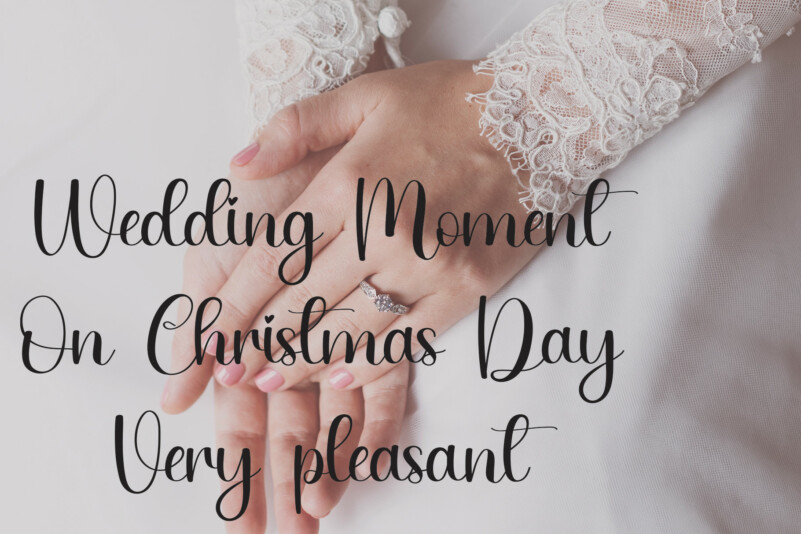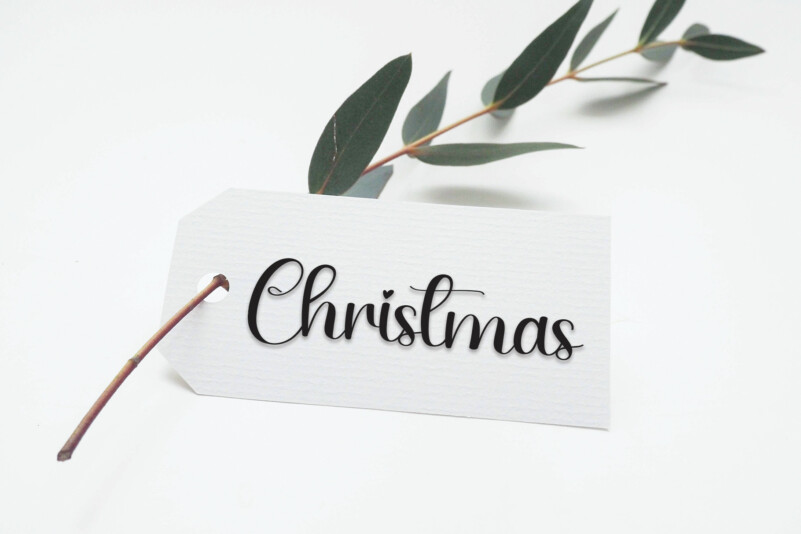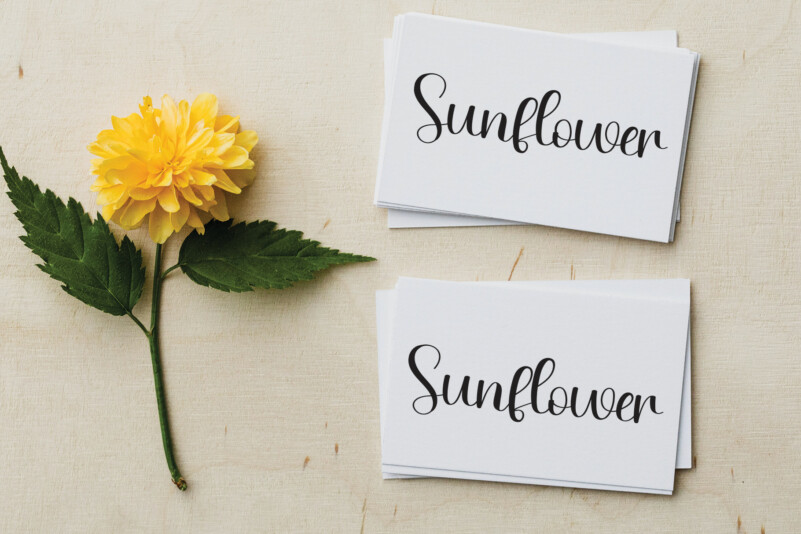
Jolly Script Typeface
Jolly Script Typeface is a charming and elegant handwritten font. Its latest style letters are perfect for wall displays, wedding invitations, social media posts, logos, advertisements, product packaging, product designs, labels, photography, watermarks, invitations, stationery, and any project that requires a handwritten taste.